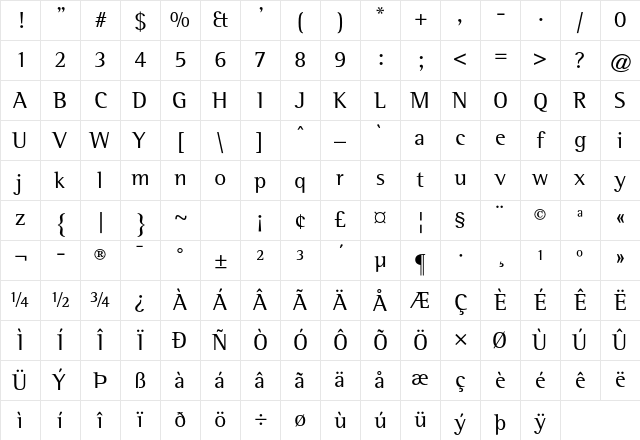
Rotis Semi Serif Std 55 Regular
Style: 55 Regular
Designer: Otl Aicher
Design Context for Rotis Semi Serif Std
Rotis Semi Serif Std carries the refined structure of traditional serif typography, with bracketed terminals and considered proportions that communicate credibility and craft.